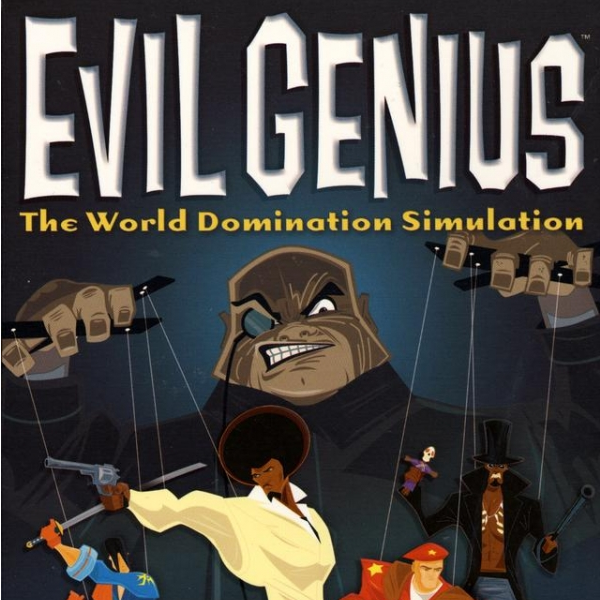
Evil Genius Font
Fonts in UseEvil Genius is a strategy simulation game where players assume the role of an evil mastermind, constructing an underground lair and plotting world domination. It was developed by Elixir Studios and published by Sierra Entertainment, released in 2004.
The game title font on the cover is most likely Fink Sans, a lively comic font from House Industries. Fink Sans belongs to the RatFink font family. More information about the font family is available here.